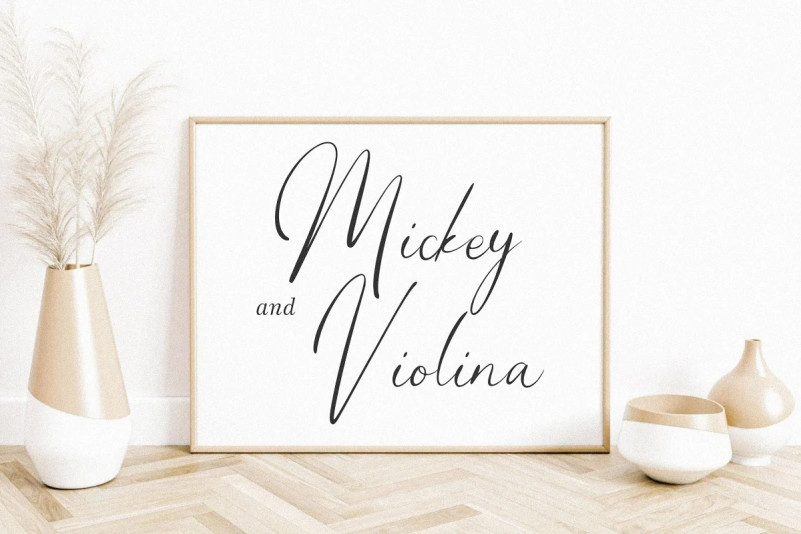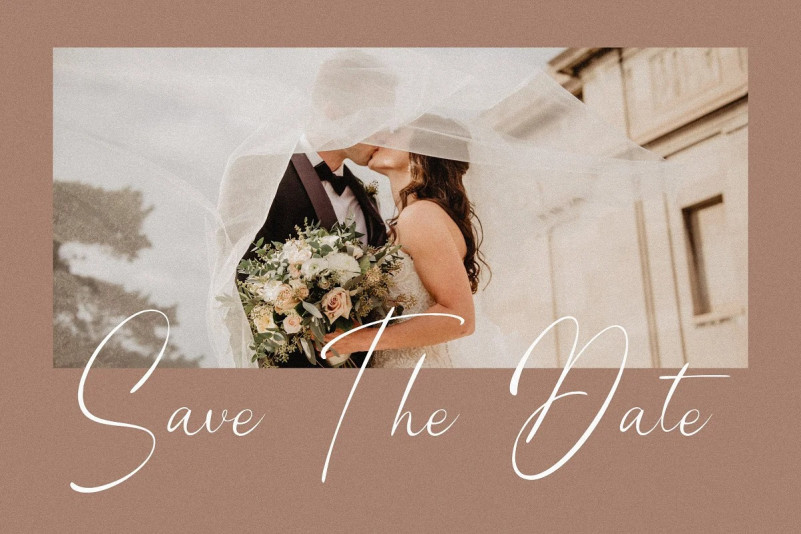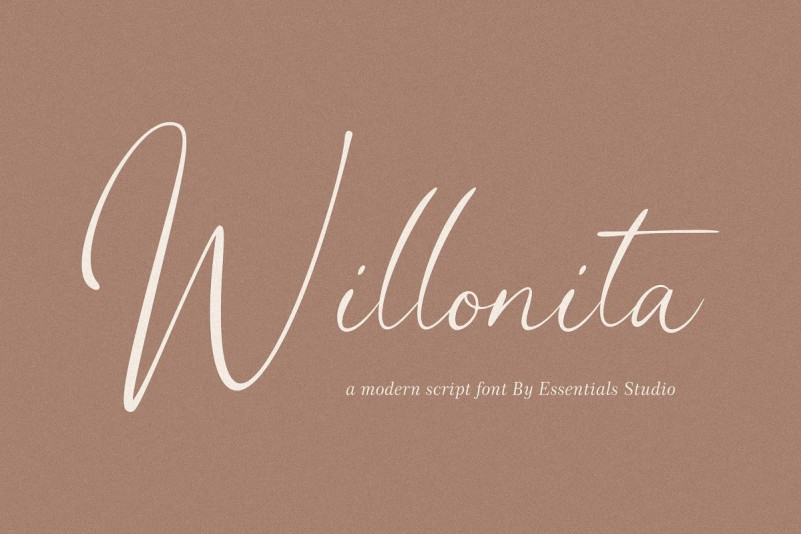
Willonita Font
Proudly present ,Willonita Script Font is a modern font.
Willonita is perfect for product packaging, branding projects, magazines, social media, weddings or just used to show words above the background.